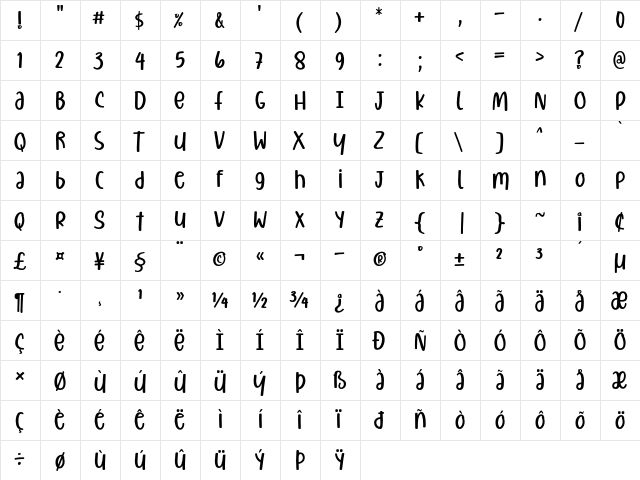
Christiany Regular
| Foundry | 7NTypes |
| Designer | Keitzo; Situjuh Nazara |
Design Context for Christiany Typeface
Christiany is a composed and adaptable typeface that performs quietly and consistently across a wide range of design contexts.